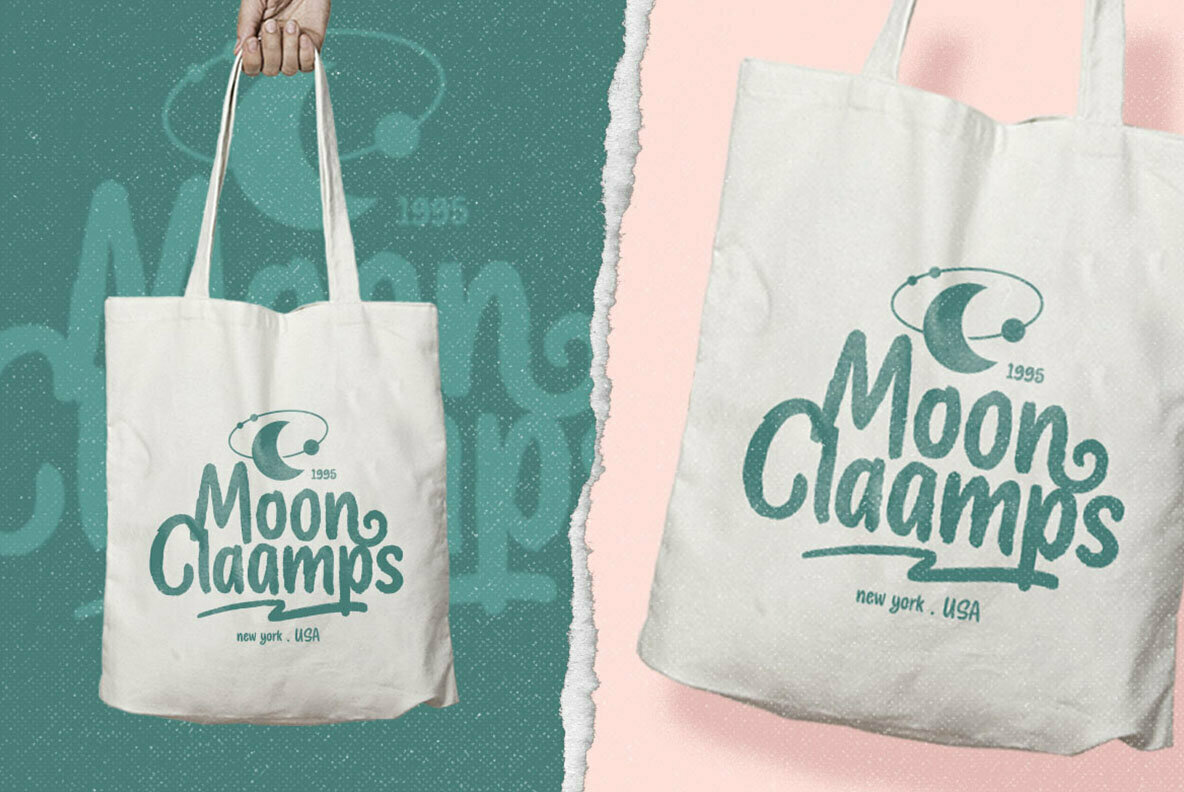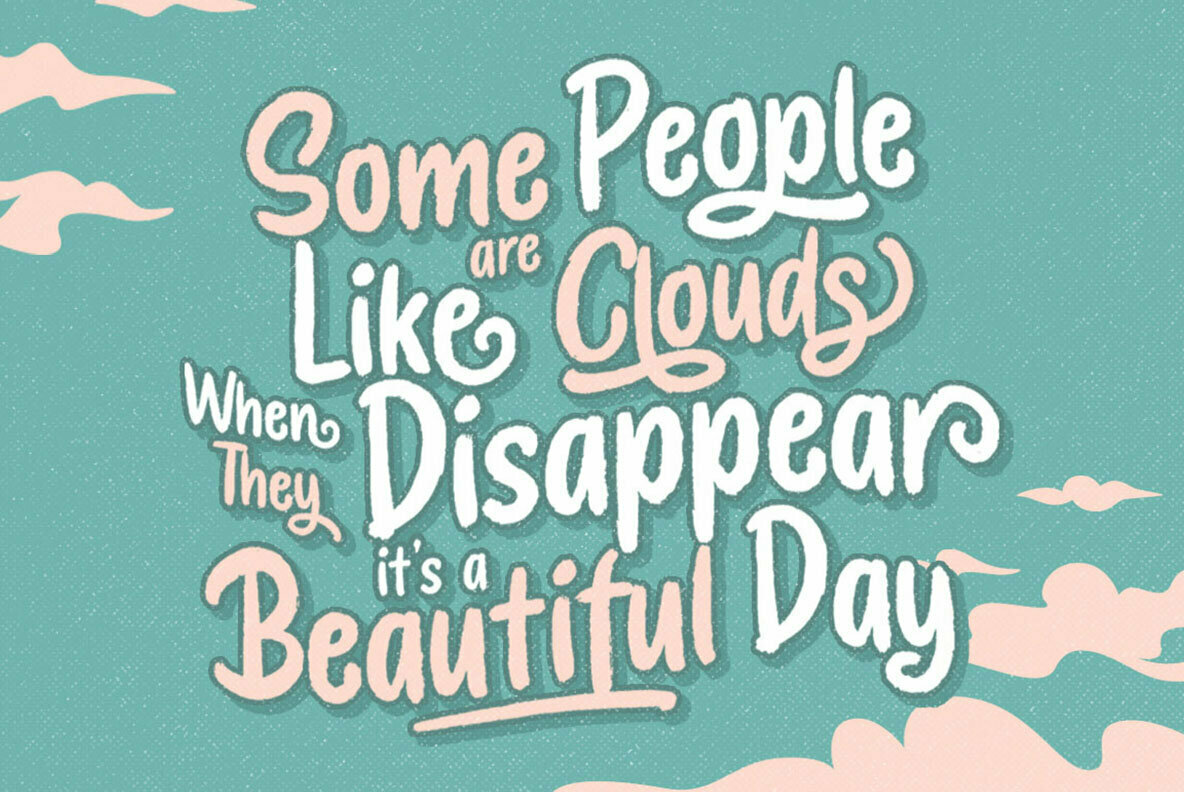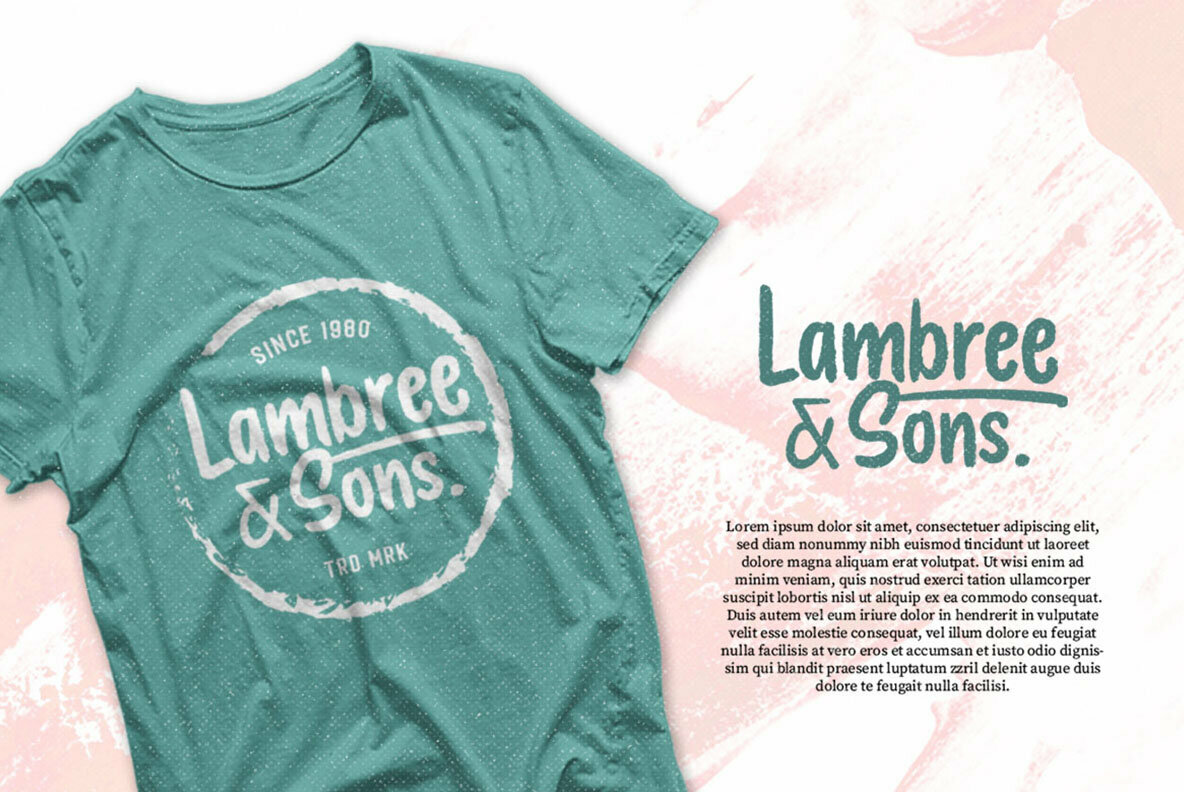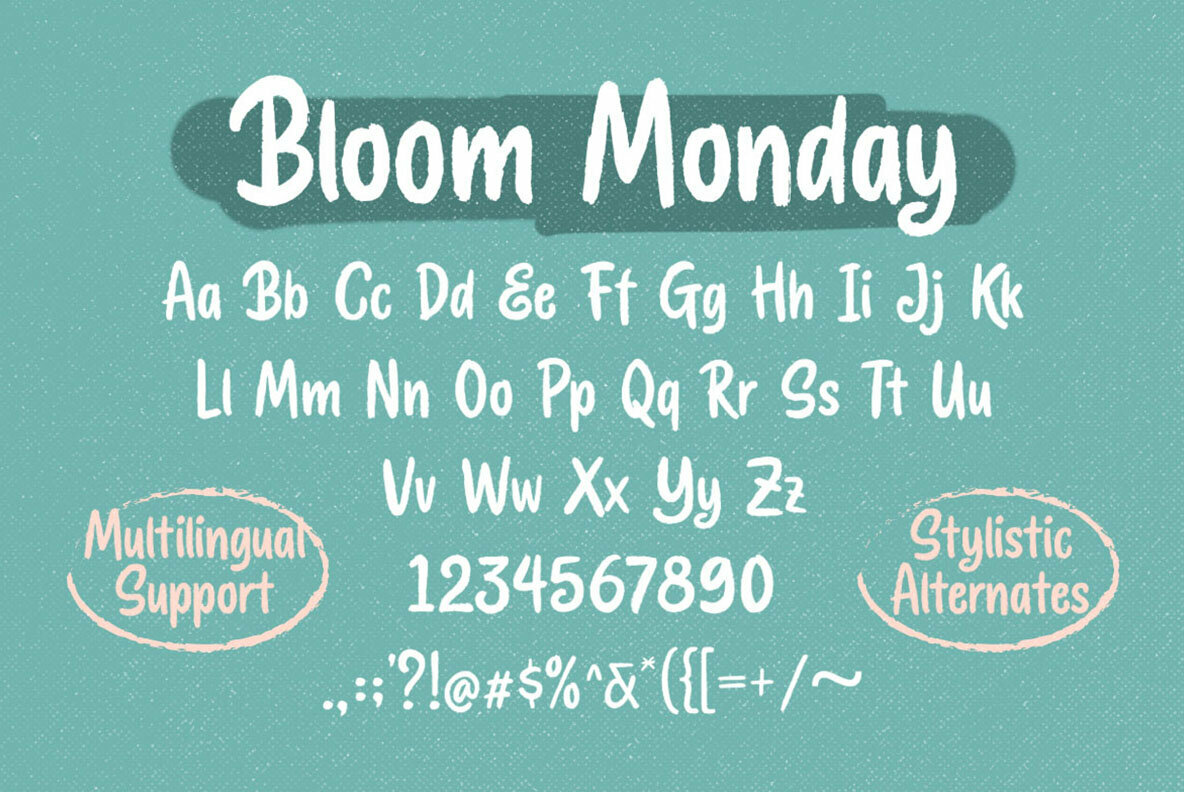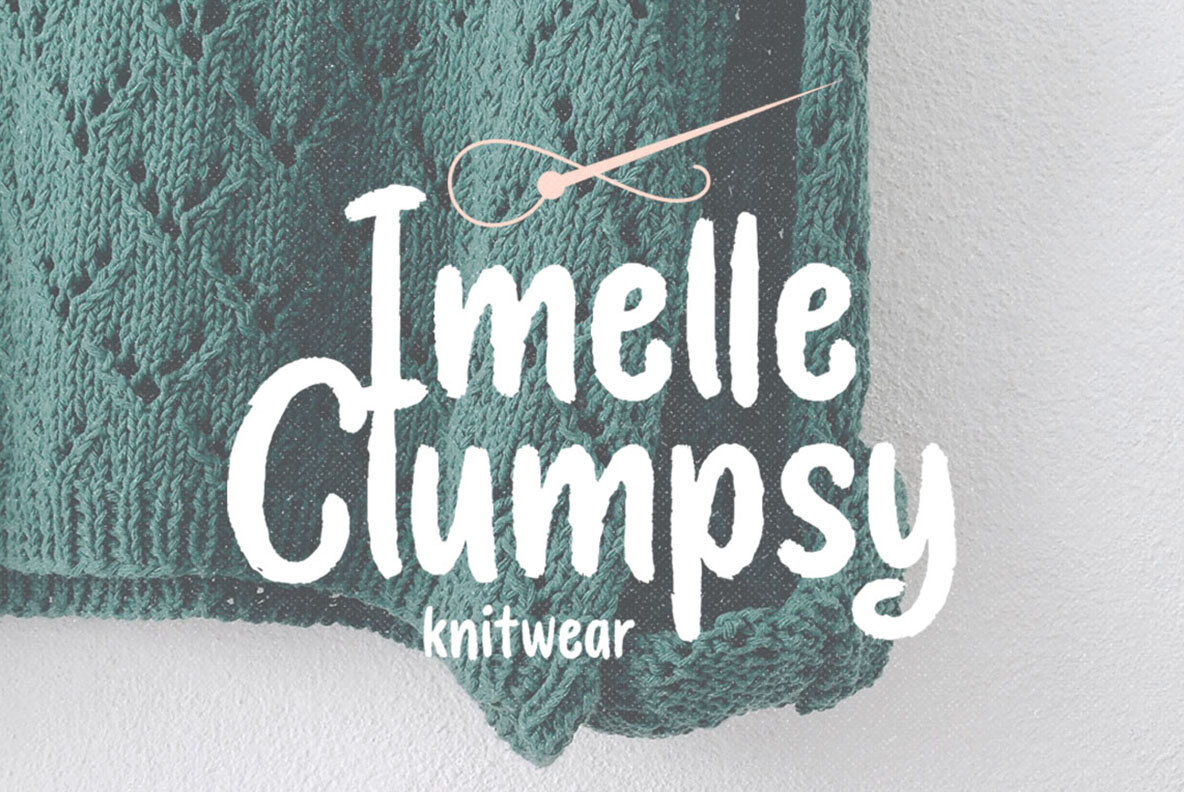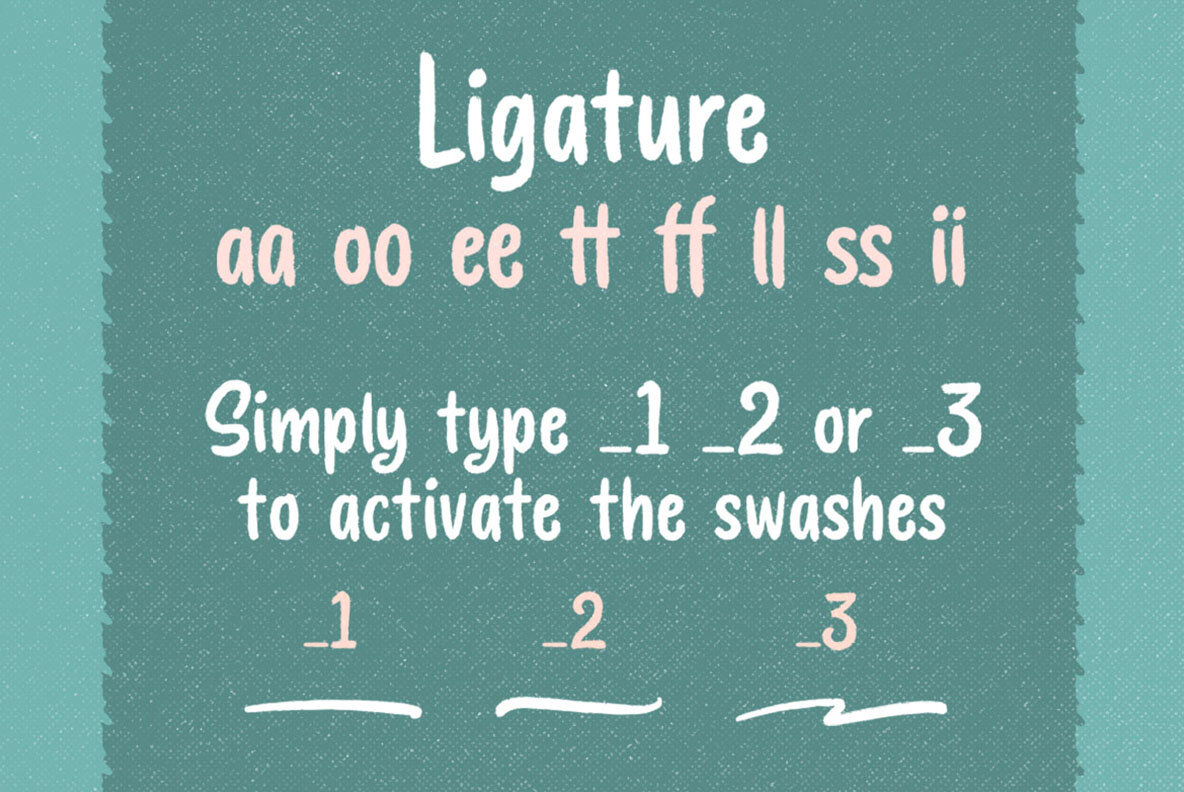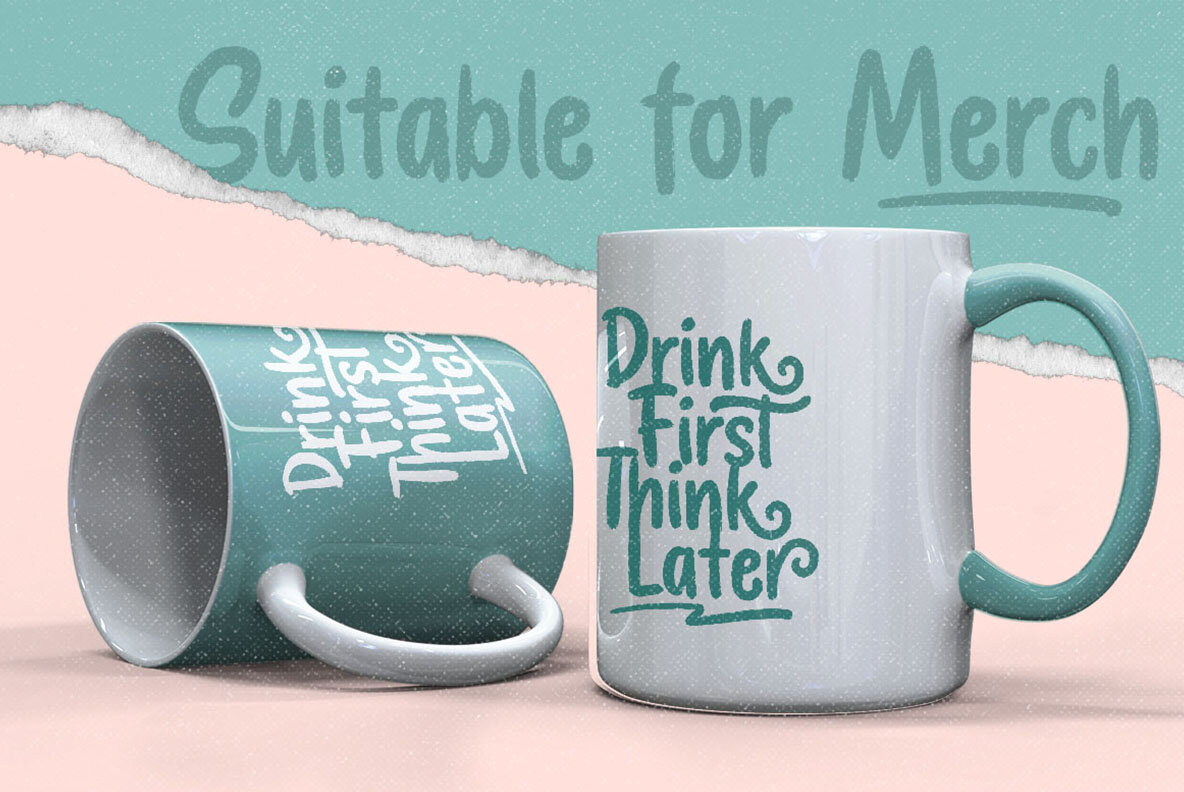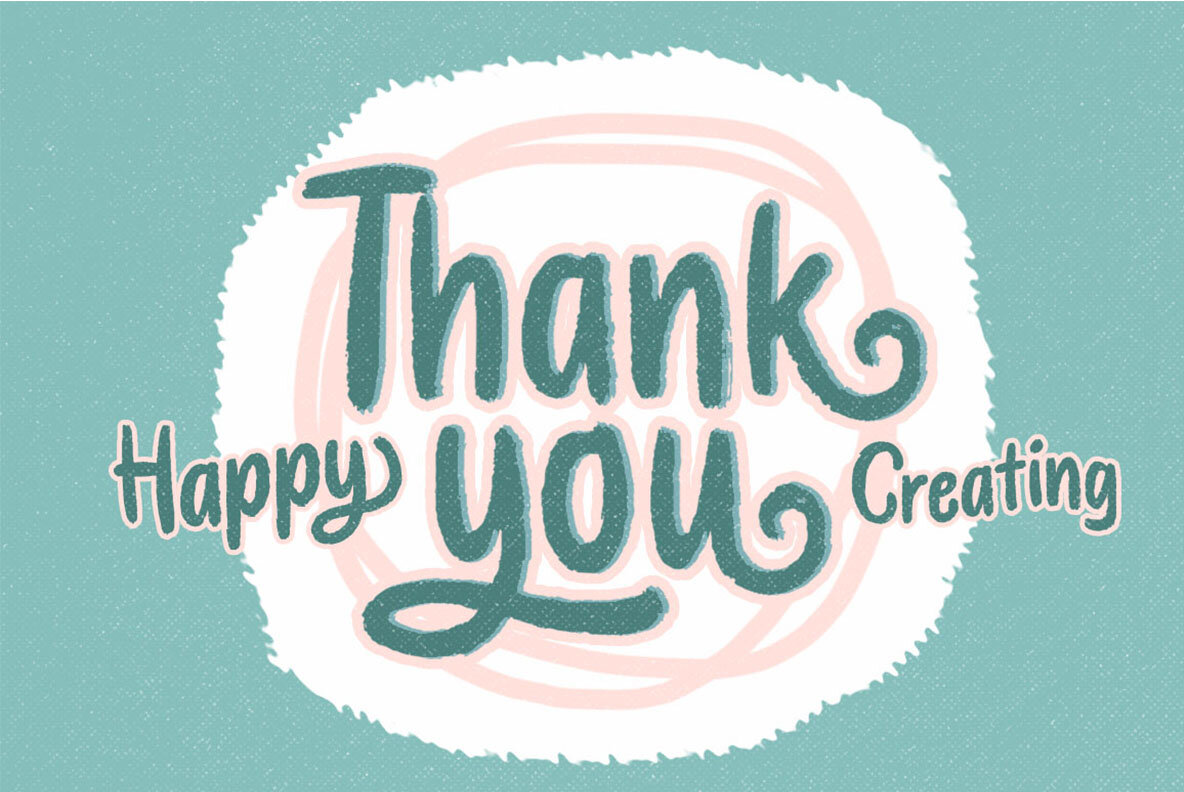
Bloom Monday Font
Bloom Monday Regular
Bloom Monday captures the elegance of vintage design through a bold script style that recalls classic retro aesthetics. Its striking swashes enhance any retro lettering project, bringing an immediate flair to your work. Perfectly suited for logos, headlines, and signage, this typeface also excels in various formal applications including invitations, labels, and much more. Its versatility extends to diverse media such as magazines, books, cards, and packaging, making it an invaluable asset for any creative endeavor.Bloom Monday: A Bold Retro Script